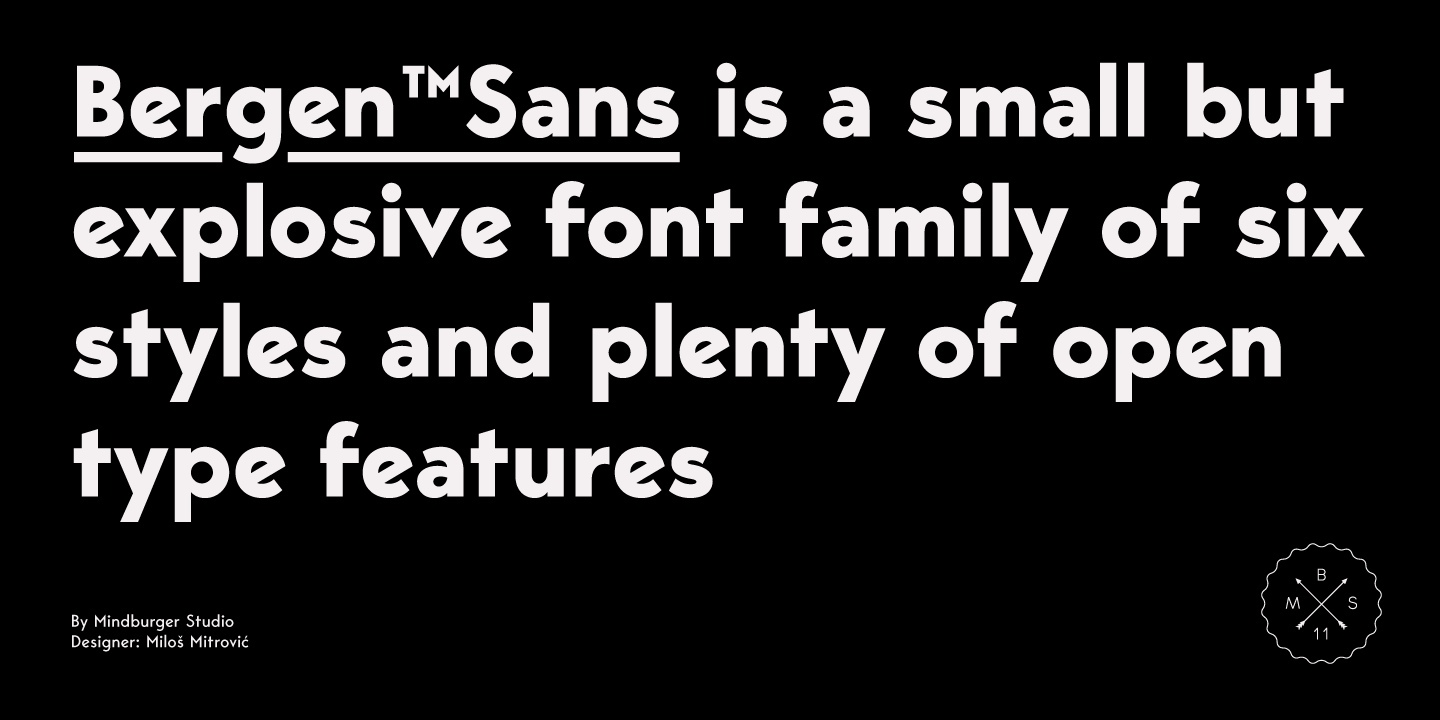
Bergen Sans Font
Bergen Sans Font is perfect for modern Norwegian businesses, Scandinavian tech companies, Nordic minimalist branding, contemporary Oslo firms, clean corporate communications, Norwegian startups, fjord tourism campaigns, modern Scandinavian architecture, progressive Nordic organizations, and authentic contemporary Norwegian designs.
What makes Bergen Sans Font exciting is its contemporary minimalism that embodies the clean efficiency of modern Norwegian design and progressive Scandinavian innovation through systematically crafted letterforms. This modern typeface combines Nordic simplicity with technological precision, creating a personality that communicates innovation, sustainability, and genuine Norwegian modernity. The font's Bergen-inspired character and contemporary appeal make it perfect for tech companies, modern businesses, and progressive organizations seeking to reflect the forward-thinking spirit of contemporary Norway.
The Bergen Sans Font family includes Thin, Light, Regular, Medium, Semi-Bold, Bold, Extra Bold, and Black variants. Each weight maintains the font's Norwegian character while providing comprehensive typographic flexibility for modern brand identity systems and contemporary design applications across diverse Norwegian business platforms.
Whether you're developing tech startup identities, creating modern marketing materials, designing contemporary corporate branding, or building progressive Norwegian campaigns, Bergen Sans Font delivers unmatched modern appeal and Norwegian sophistication. Its clean presence makes it perfect for Norwegian tech companies, modern Scandinavian businesses, progressive organizations, and contemporary brands seeking authentic modern Bergen representation.
The font's minimalist proportions and contemporary details ensure optimal performance across digital platforms while maintaining the distinctive clarity that defines modern Norwegian design. Each letterform has been carefully engineered to convey efficiency, sustainability, and technological advancement that resonates with modern audiences seeking progressive solutions and innovative approaches.
This versatile typeface excels in technological environments, offering designers the modernity needed for comprehensive contemporary Norwegian brand communication strategies. The extensive character set includes modern alternates, technological ligatures, and progressive symbols for tech market positioning and modern Norwegian brand storytelling.
Embrace the power of modern design that celebrates Norwegian innovation and authentic contemporary Scandinavian excellence.